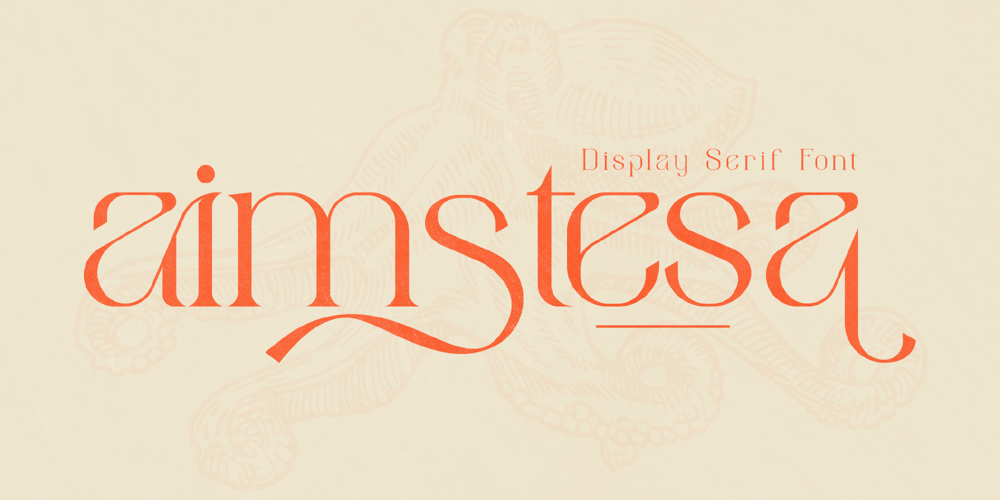
Aimstesa Font Family was designed by Heru Utama Putra and published by Letterena Studios. Aimstesa contains 2 styles and family package options. Aimstesa is a modern and classic serif font with its own unique style and beautiful characters.This typeface is perfect for an elegant & luxury logo, book or movie title design, fashion brand, magazine, clothes, lettering, quotes, and so much more.